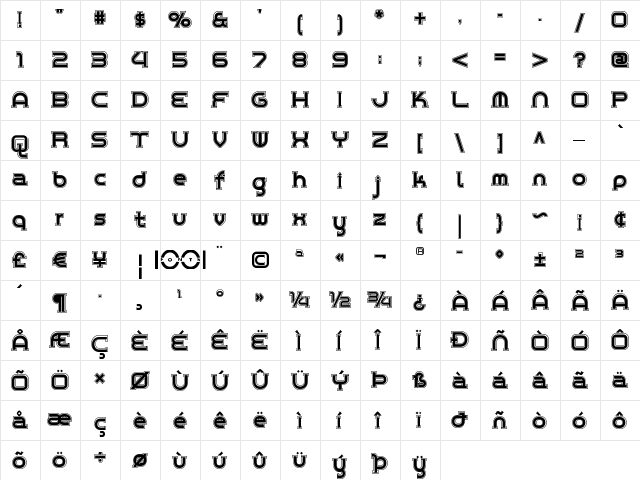
Chrome Yellow Inline NF Regular
Design Context for Chrome Yellow Inline NF Typeface
Chrome Yellow Inline NF brings ornamental detail and strong personality to headlines and identities, where visual impact matters more than quiet functionality.
Font Pairing: Pair with a clean neutral sans-serif for body copy to let Chrome Yellow Inline NF's character lead without overwhelming the composition.
Pro Tip: Use Chrome Yellow Inline NF exclusively at display sizes — it was designed to be seen, not read at length. Let a neutral companion handle body copy.